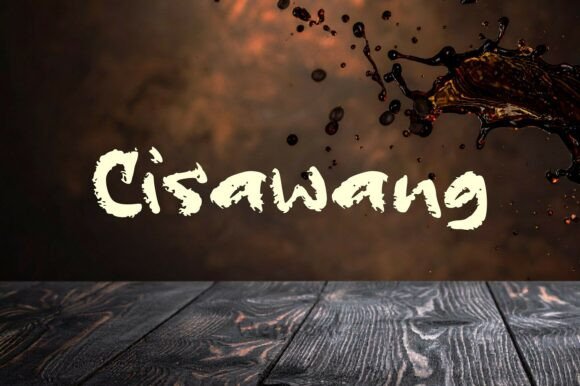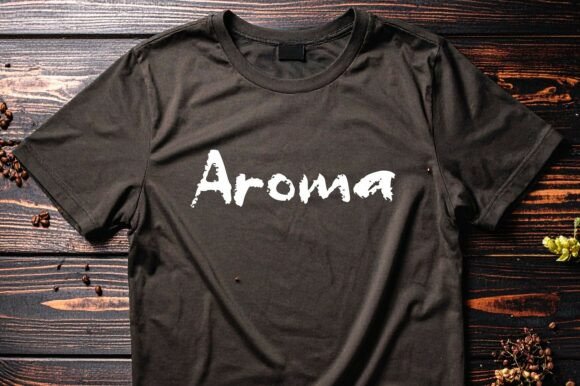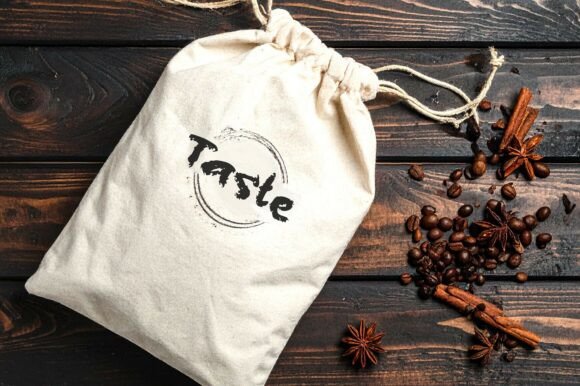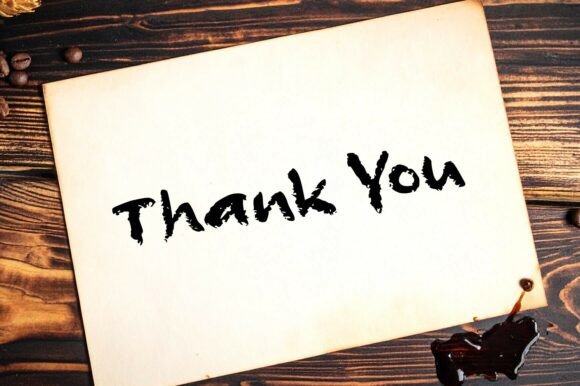
Introduction to Cisawang Font
Unveiling Cisawang – a refreshingly genuine handwritten font, infusing a graceful ease and a distinctive element into your designs.
Cisawang offers a flawless blend of creativity and legibility, featuring freely flowing yet grounded strokes It radiates an aura of familiar refinement, sure to beguile onlookers at first glance.
Key Features of Cisawang Font
Why Choose Cisawang Font?